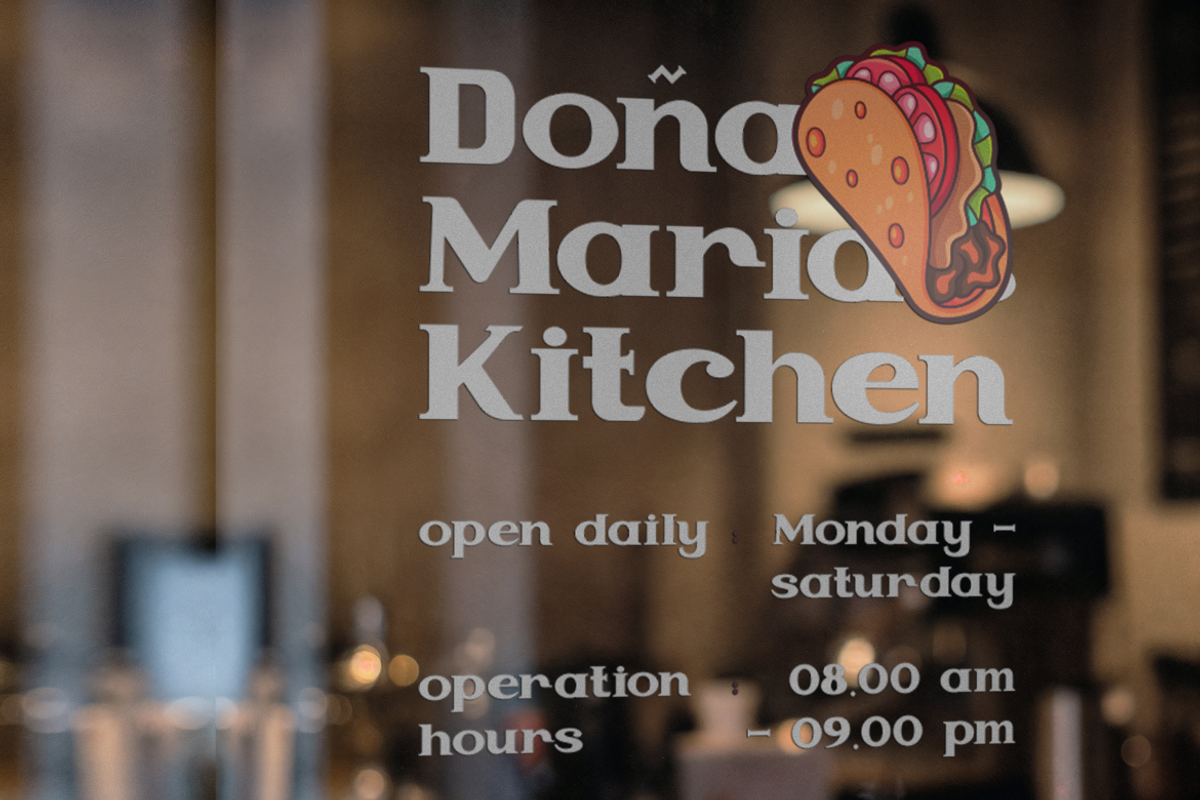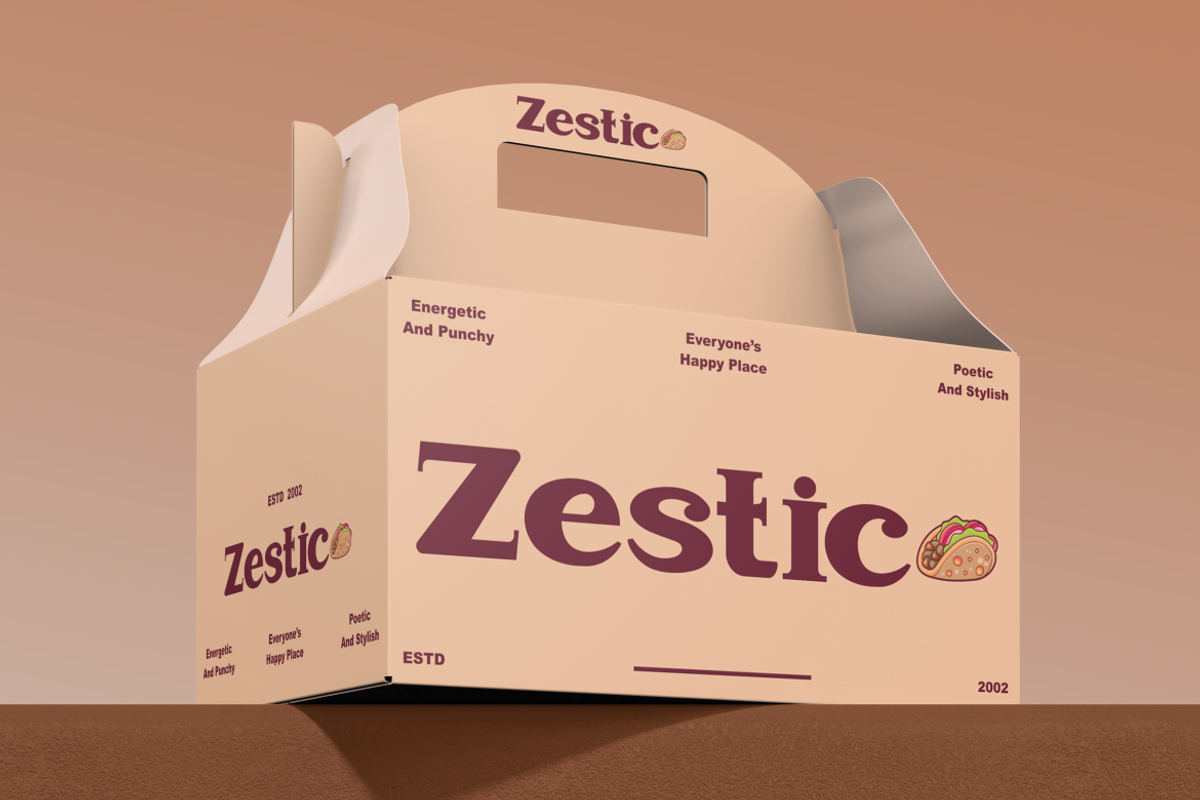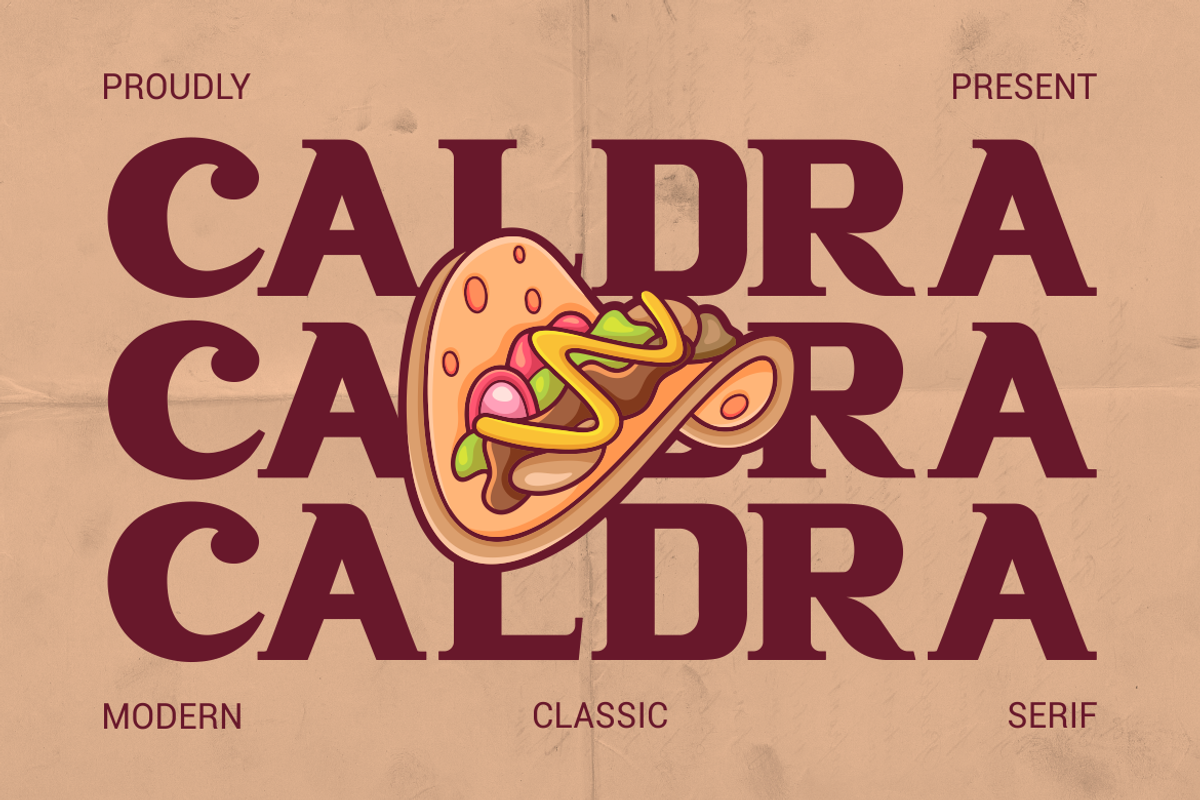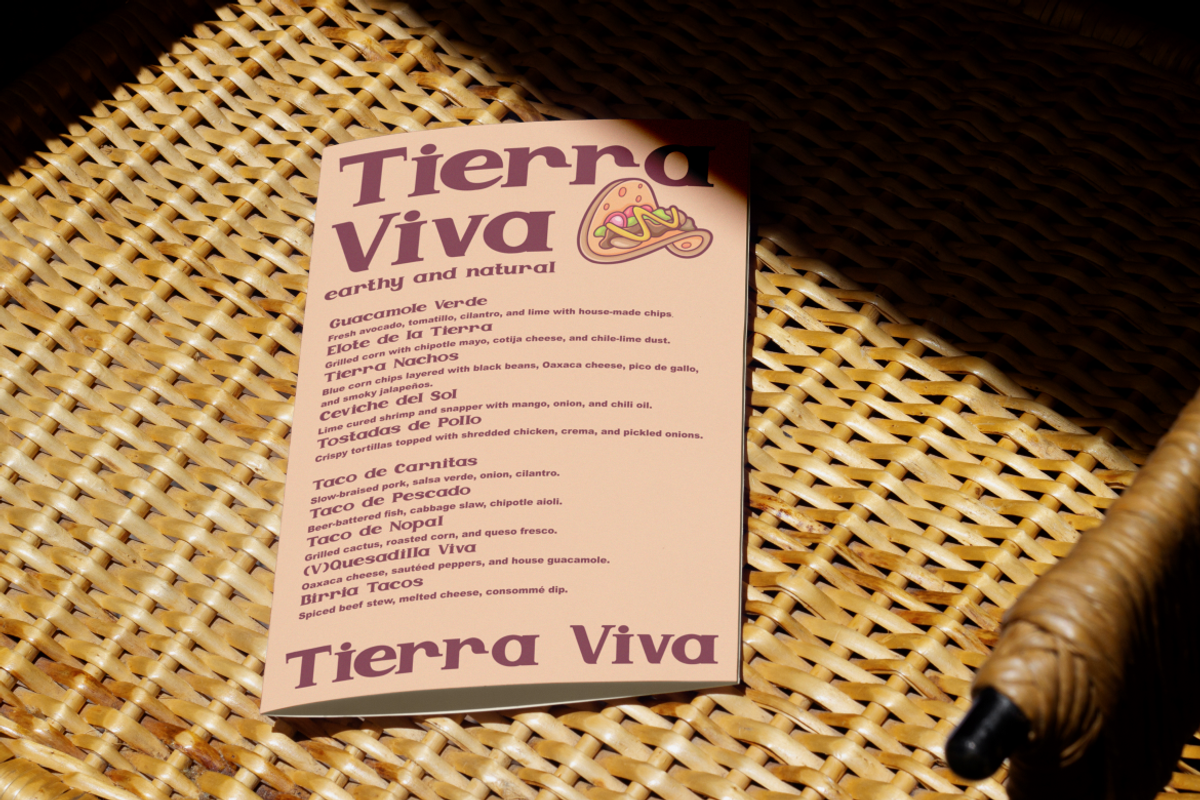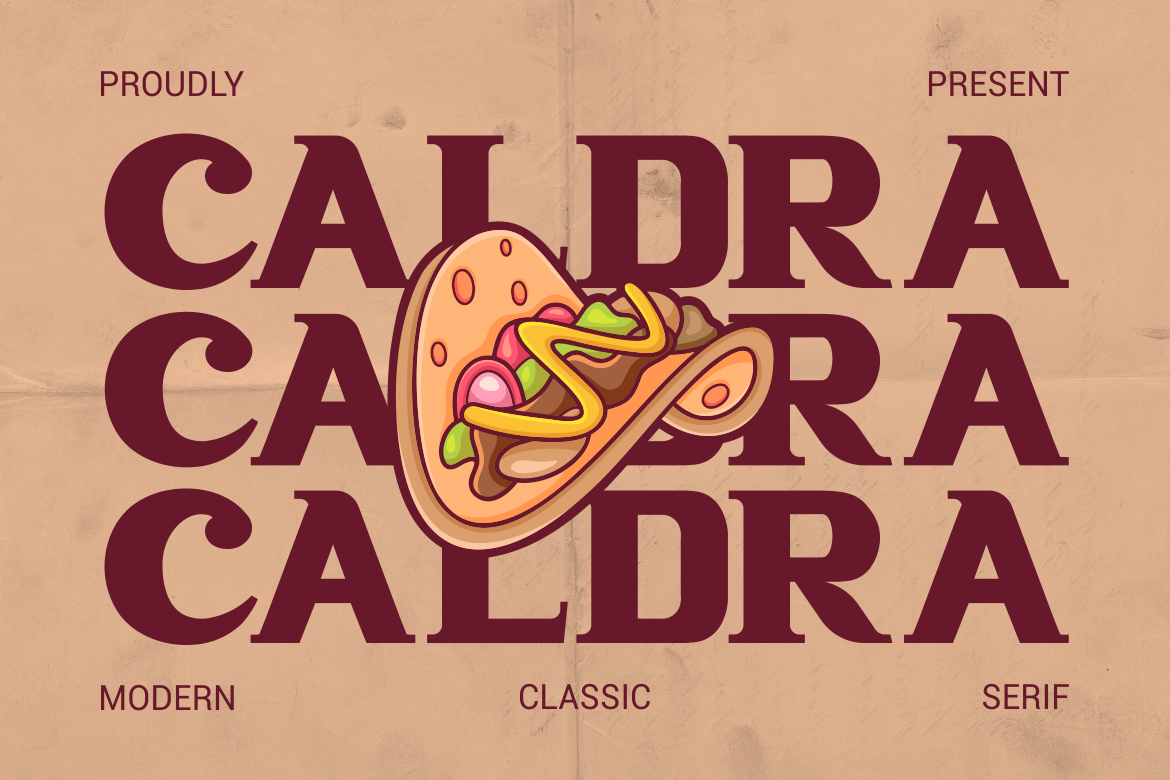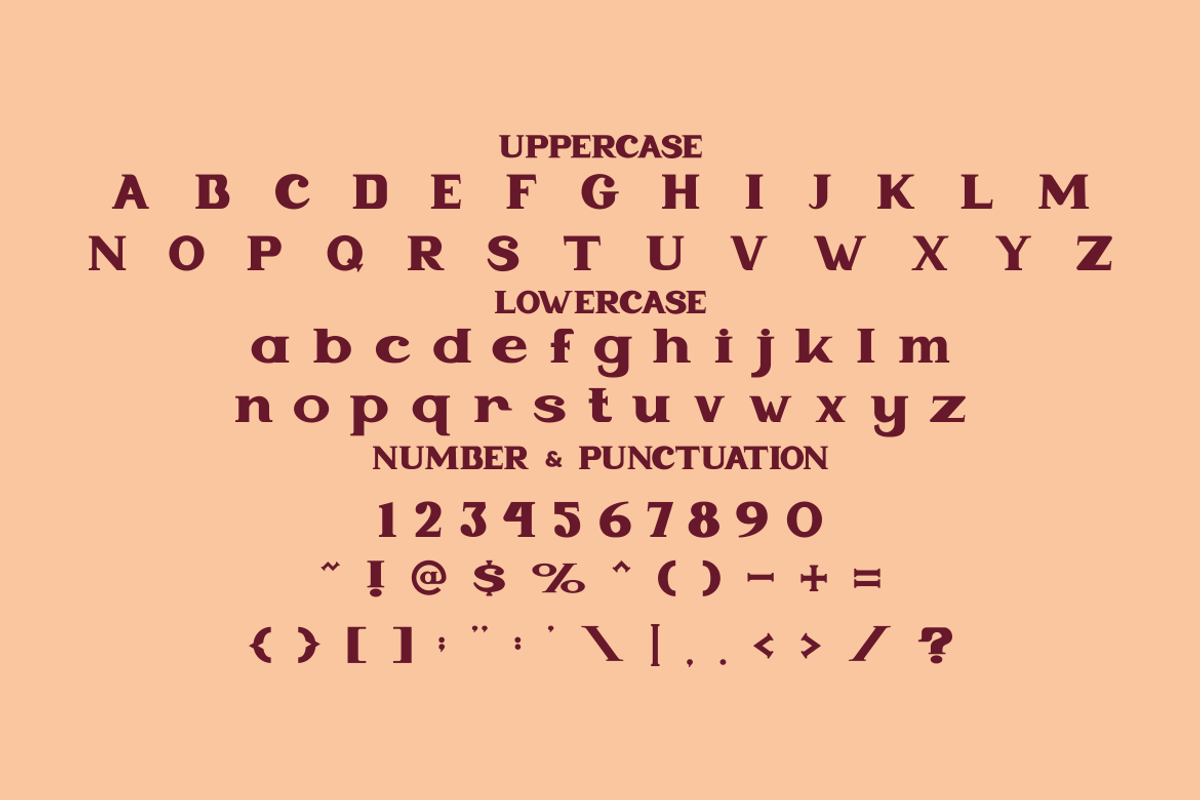
Caldra Modern Classic Serif Font
Caldra Modern Classic Serif Font is a refined serif typeface built with balanced proportions and confident structure. Each letter shows moderate height with well-defined vertical stress, creating a stable and elegant rhythm. Stroke contrast feels controlled, combining firm stems with softer transitions for comfortable readability. Serifs appear clean and slightly rounded, avoiding sharp aggression while maintaining classic authority. The letterforms feel solid but not heavy, which helps text stay inviting and clear. Spacing between characters feels natural, allowing words to breathe across longer text blocks. Uppercase letters project confidence and tradition, while lowercase forms feel friendly and readable. Numbers and punctuation follow the same disciplined construction, ensuring consistency in professional layouts.
Caldra Modern Classic Serif Font carries a modern classic personality that fits food-related branding and premium storytelling. The style feels warm, tasteful, and trustworthy, making it suitable for restaurants, cafes, food packaging, and culinary brands. It works well for logos, menus, packaging, headlines, posters, magazines, and product labels. The serif details add credibility, while the modern proportions keep the font relevant and fresh. Caldra Modern Classic Serif Font helps food brands communicate quality, heritage, and care through typography. Designers can use it to create inviting brand identities that feel both traditional and contemporary. The font also performs well for editorial titles, business branding, invitations, and film titles. Caldra Modern Classic Serif Font offers a versatile typographic voice that supports storytelling, craftsmanship, and visual consistency across print and digital media.